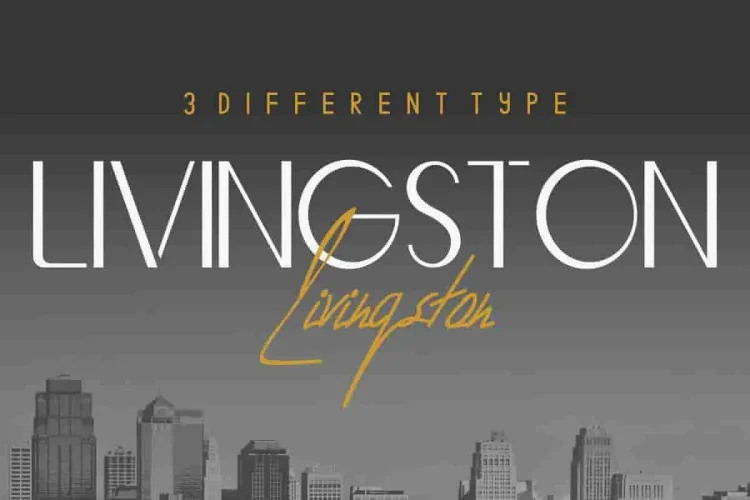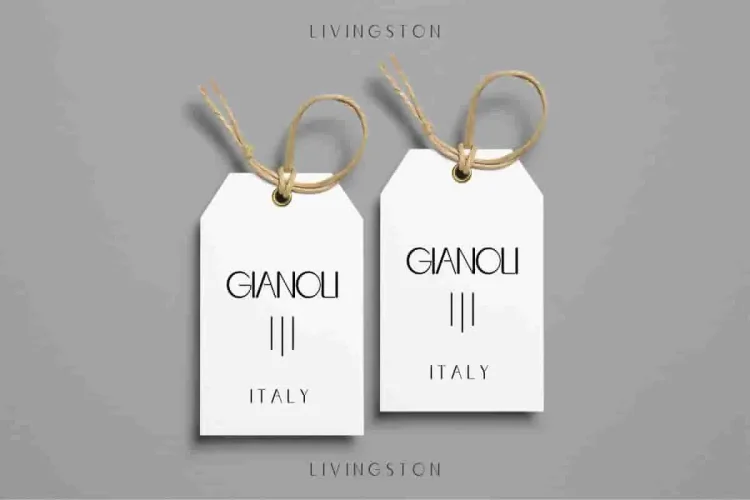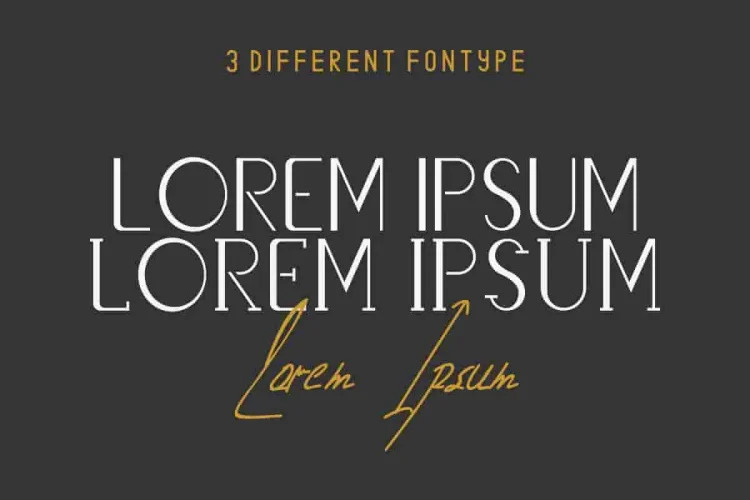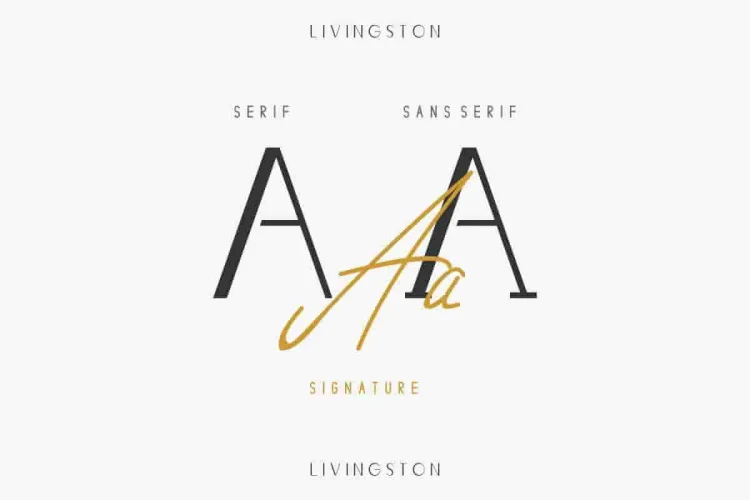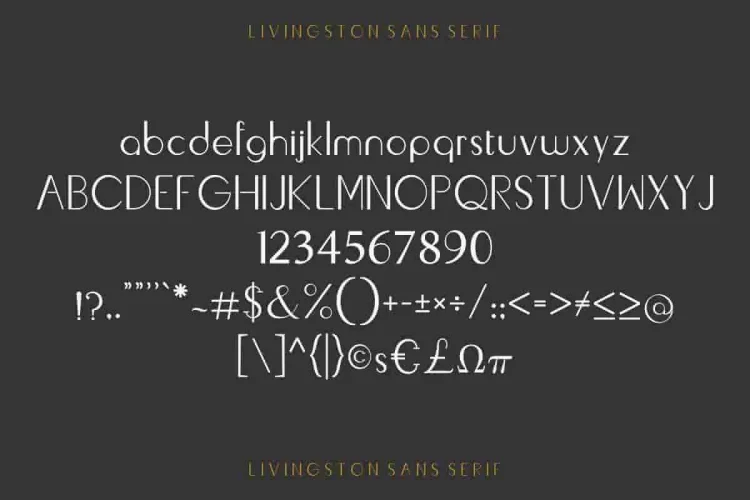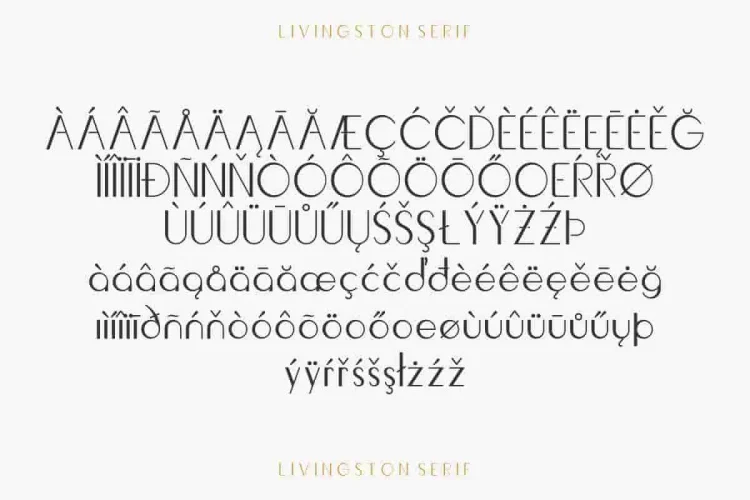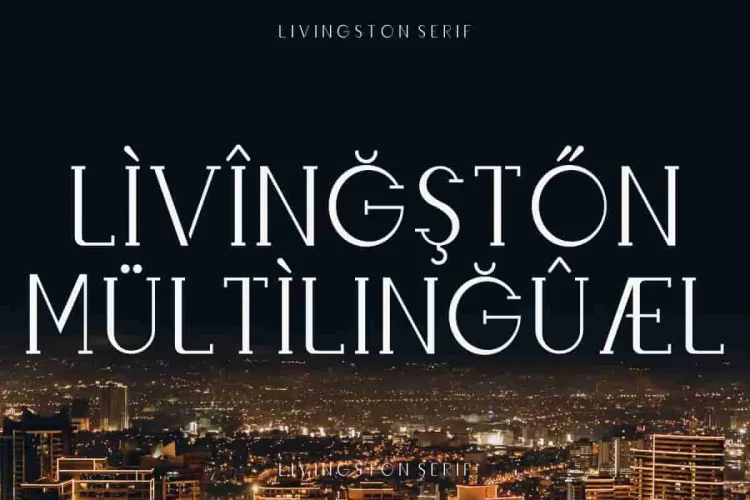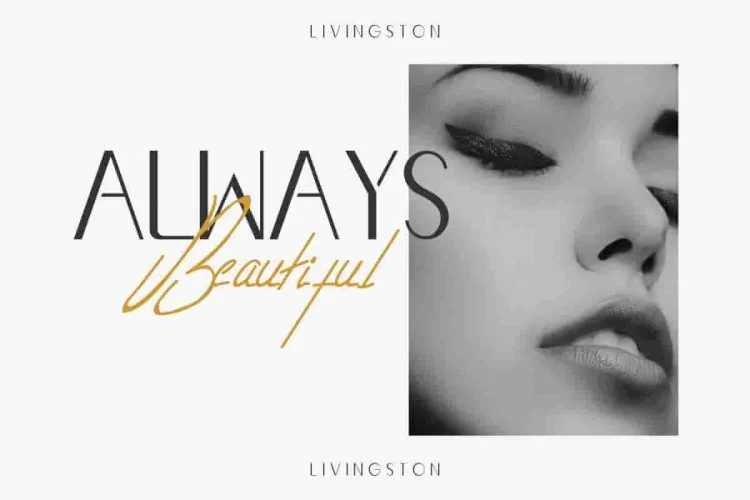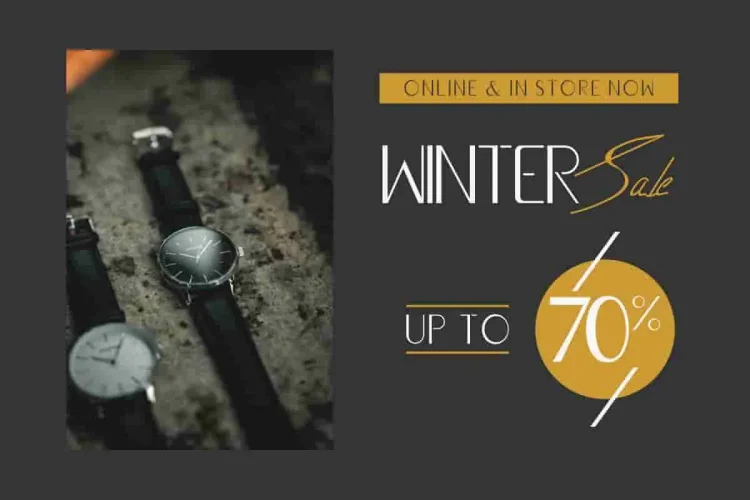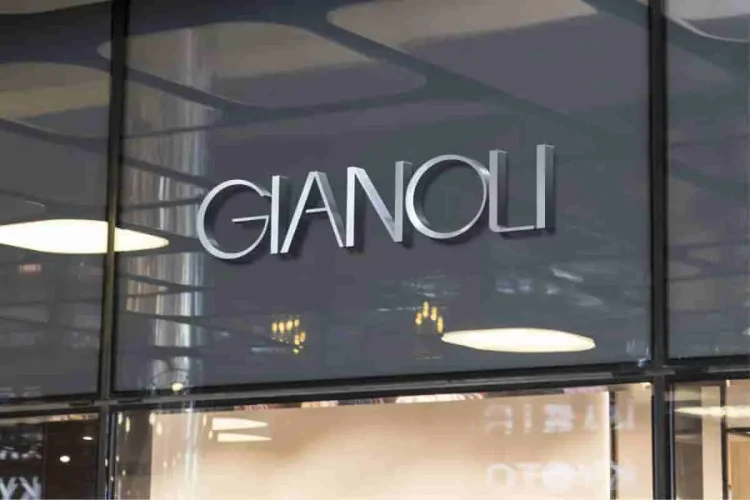
Livingston Script Handwriting Font Trio
Hola! Meet Our Newest Font: Livingston – The Ultimate Trio! These family font comes with: Serif, Sans and Script. ALL IN ONE PACK
This is a new modern font. With a script handwriting feminime signature style font. Elegant Sans and Exclusive Serif font.It has a fresh, unique, premium and stylish characters. Moreover, it’s include multi language characters.
The font will be great for branding, logo, stationery, business card, signage, flyer, brochure, website, apps etc. There are many industries that is suitable for this font : wedding, fashion, boutique, premium real estate, insurance, law firm, designer, etc It is so casual yet classy, light and beautiful.
What makes it truly unique? Not only does Livingston include multilingual support and elegant alternates, but it also blends modern sans serif clarity, classic serif sophistication, and handwritten warmth—all in one kit.
• Trio Pack: Serif, Sans, and Script in one cohesive family
• Elegant Signature Style: Perfect for logos, quotes, and branding
• Versatile & Classy: Ideal for both professional and artistic use
Ultimately, with Livingston, you don’t just get a font—you get a signature look that transforms your designs with style and emotion.